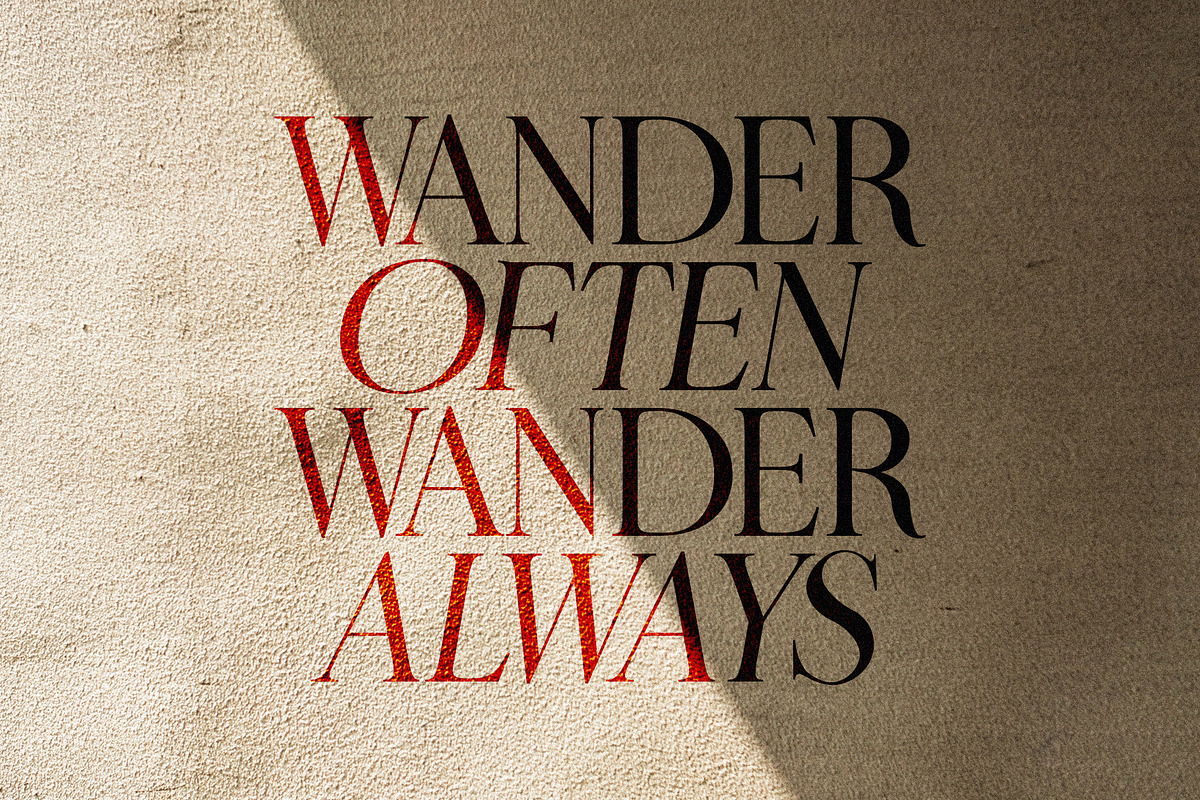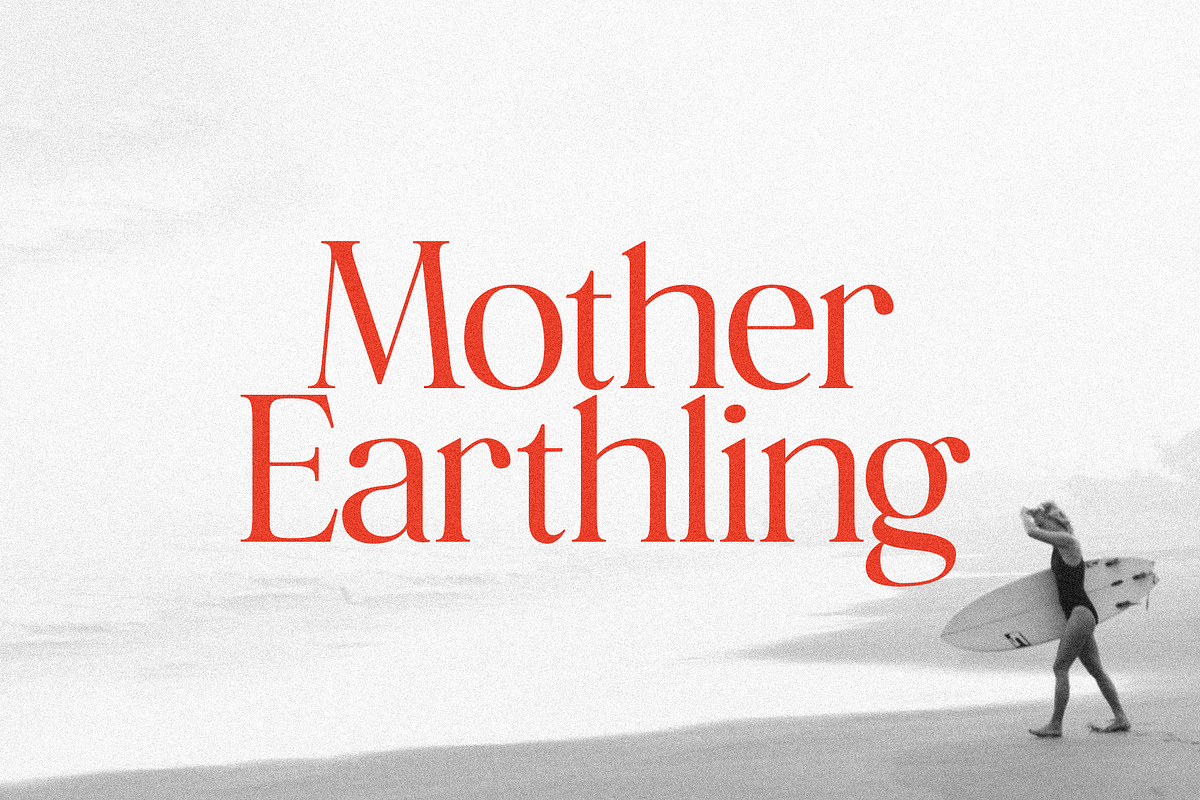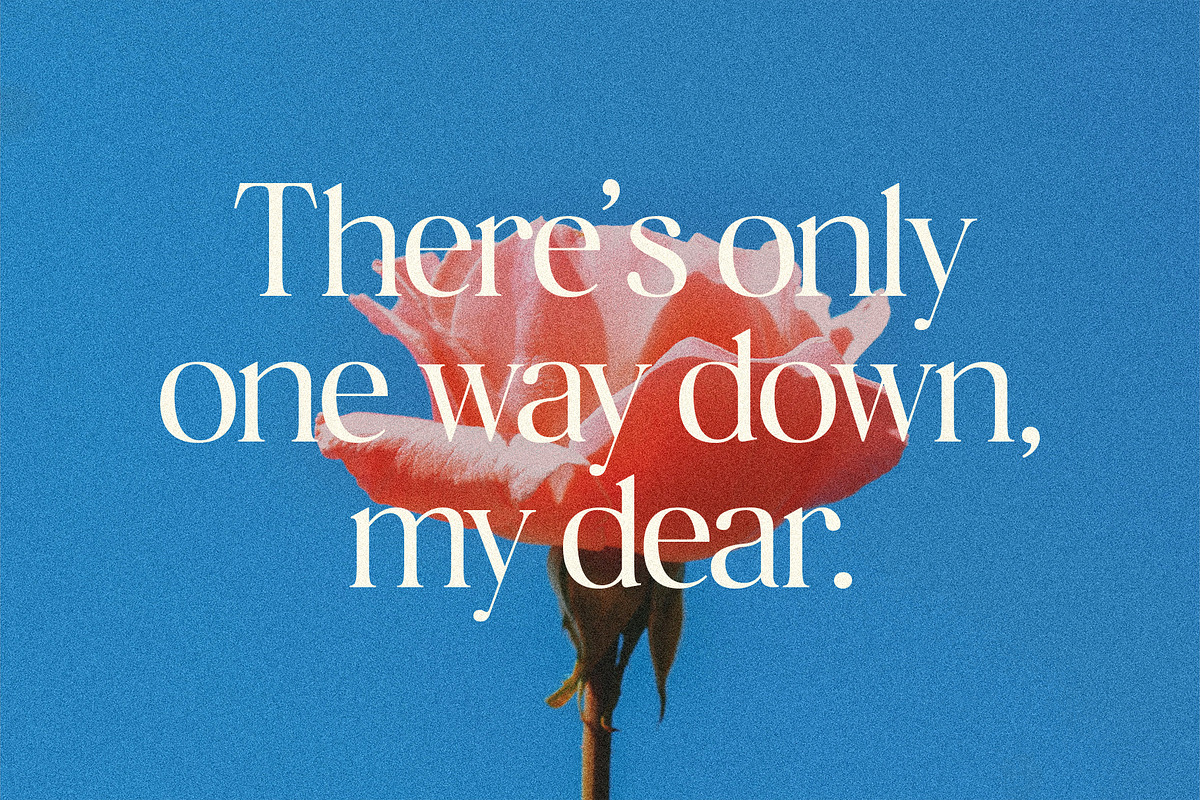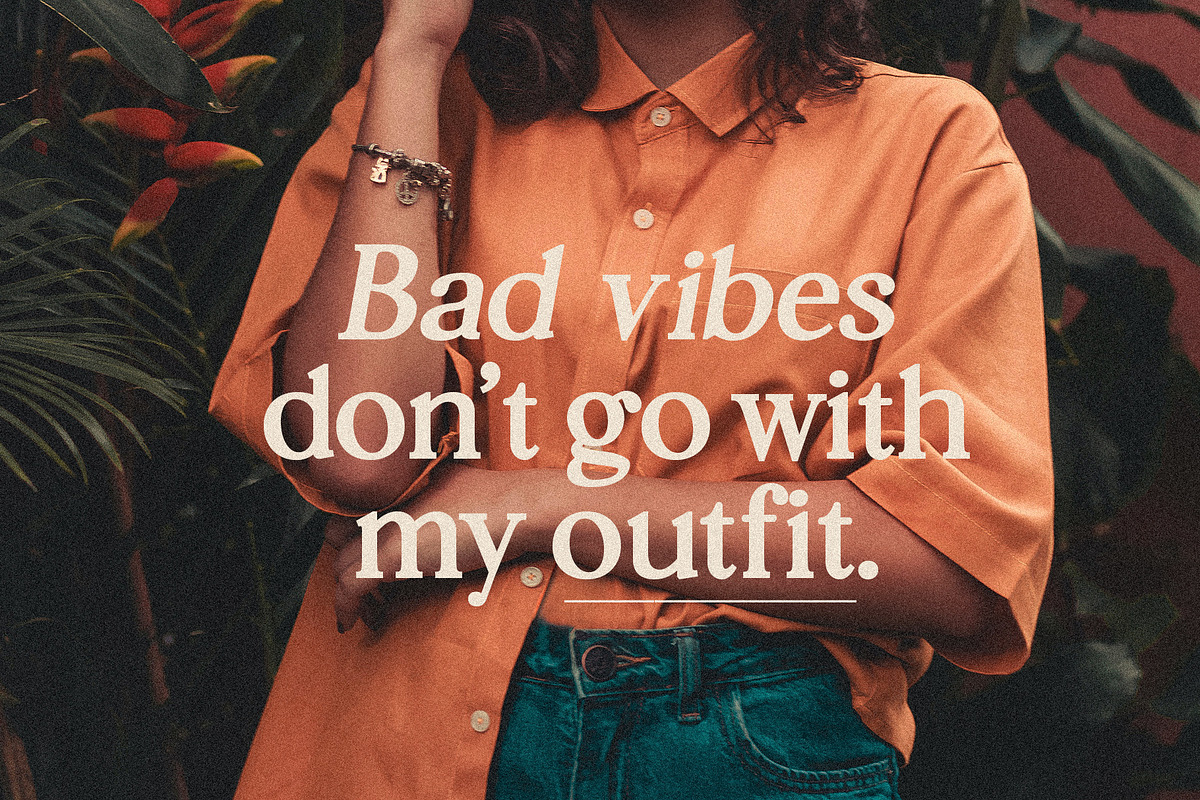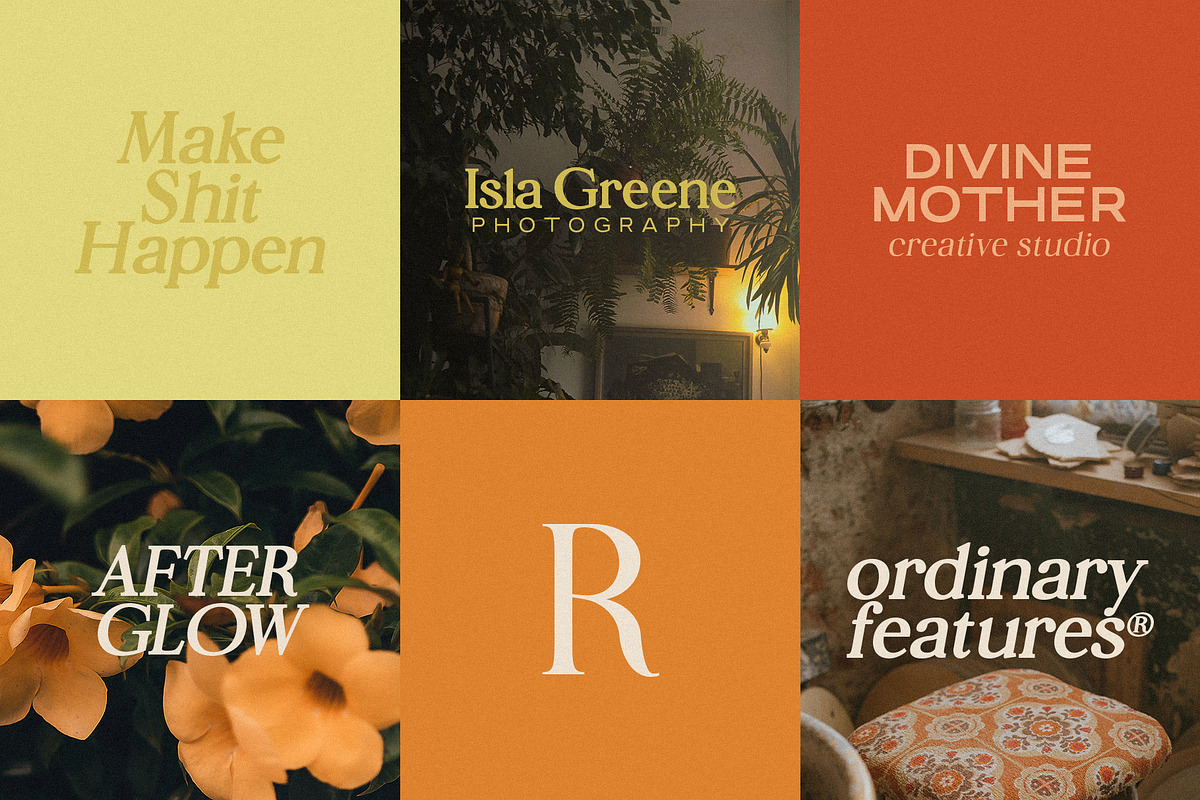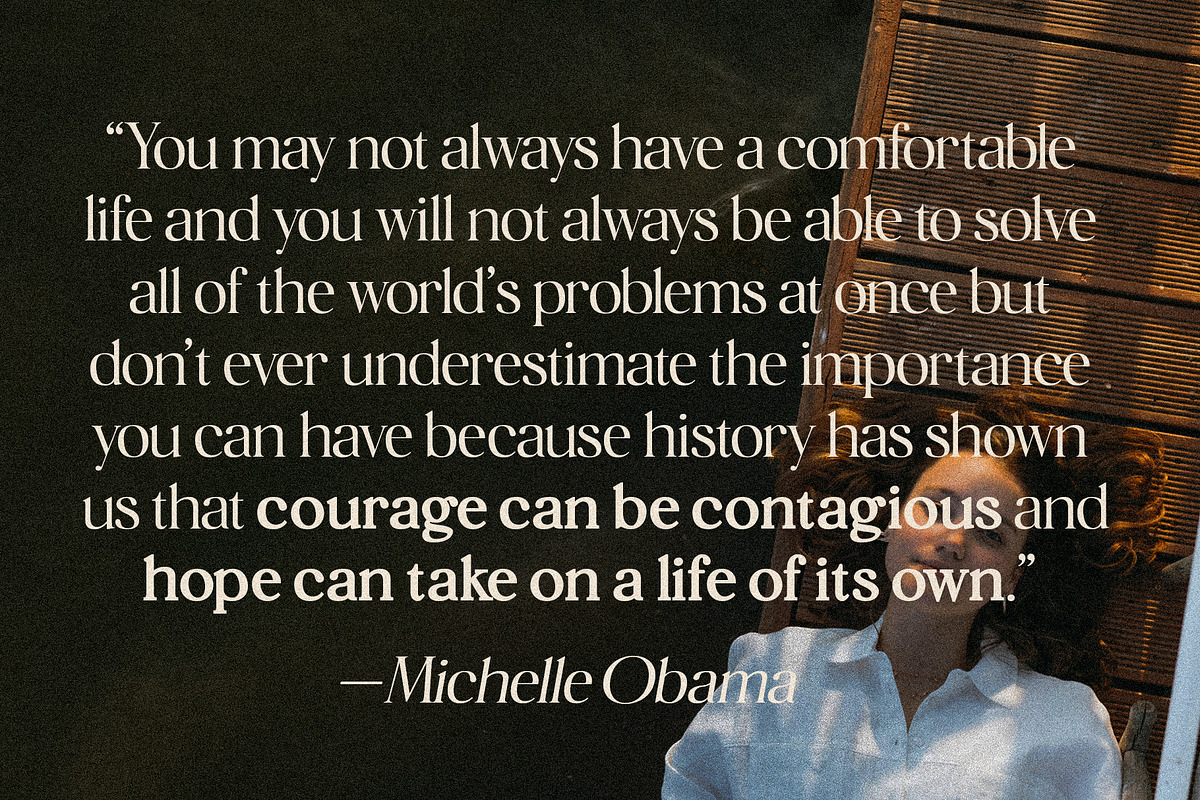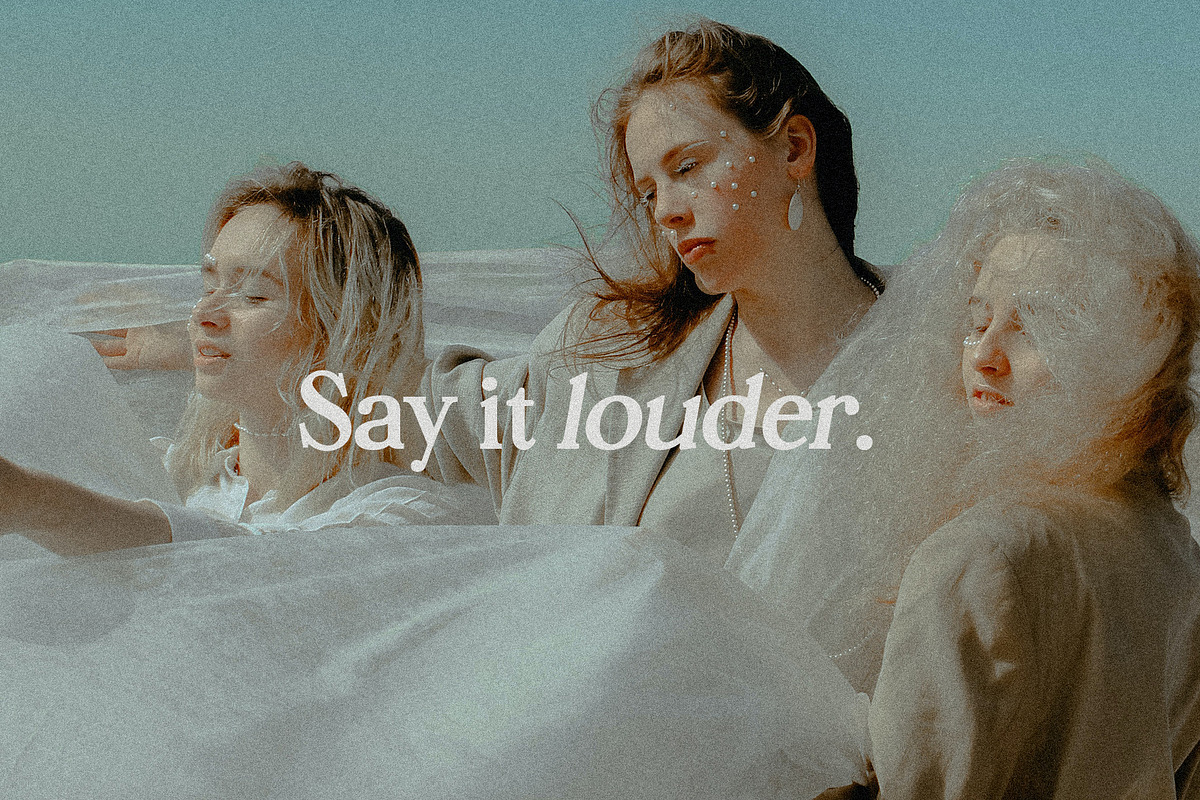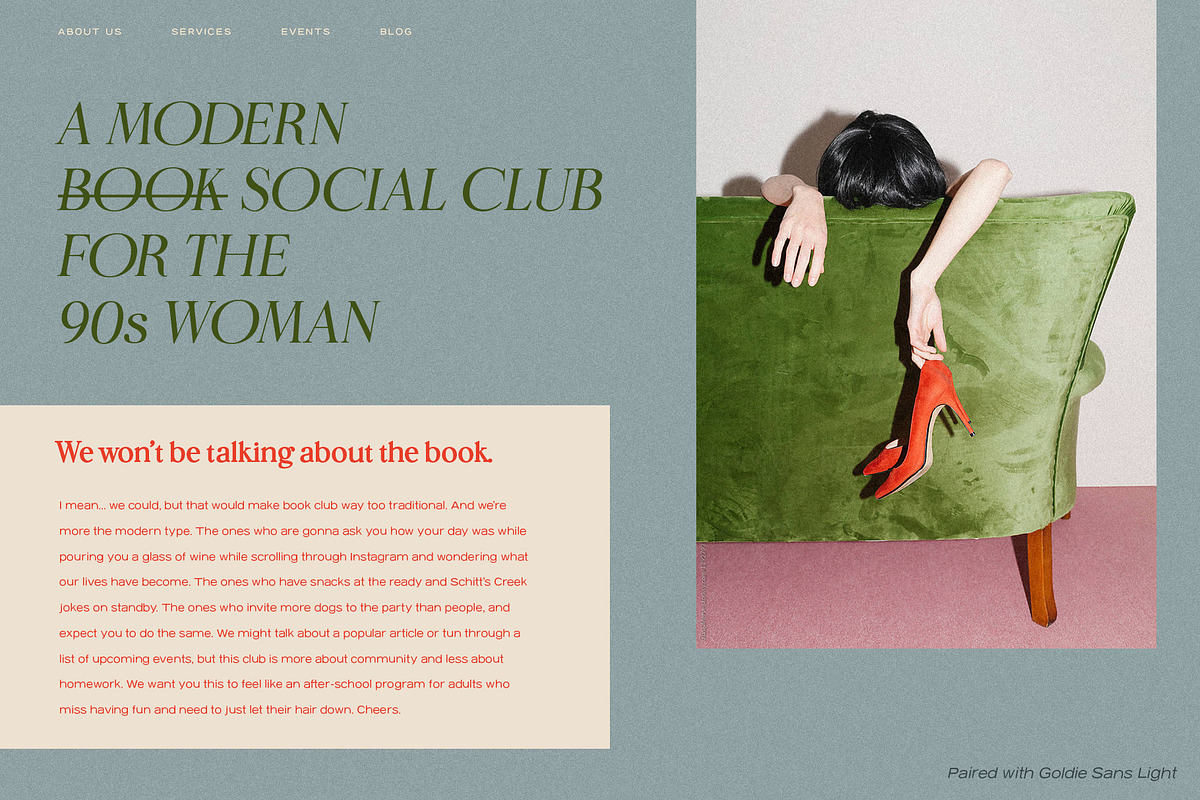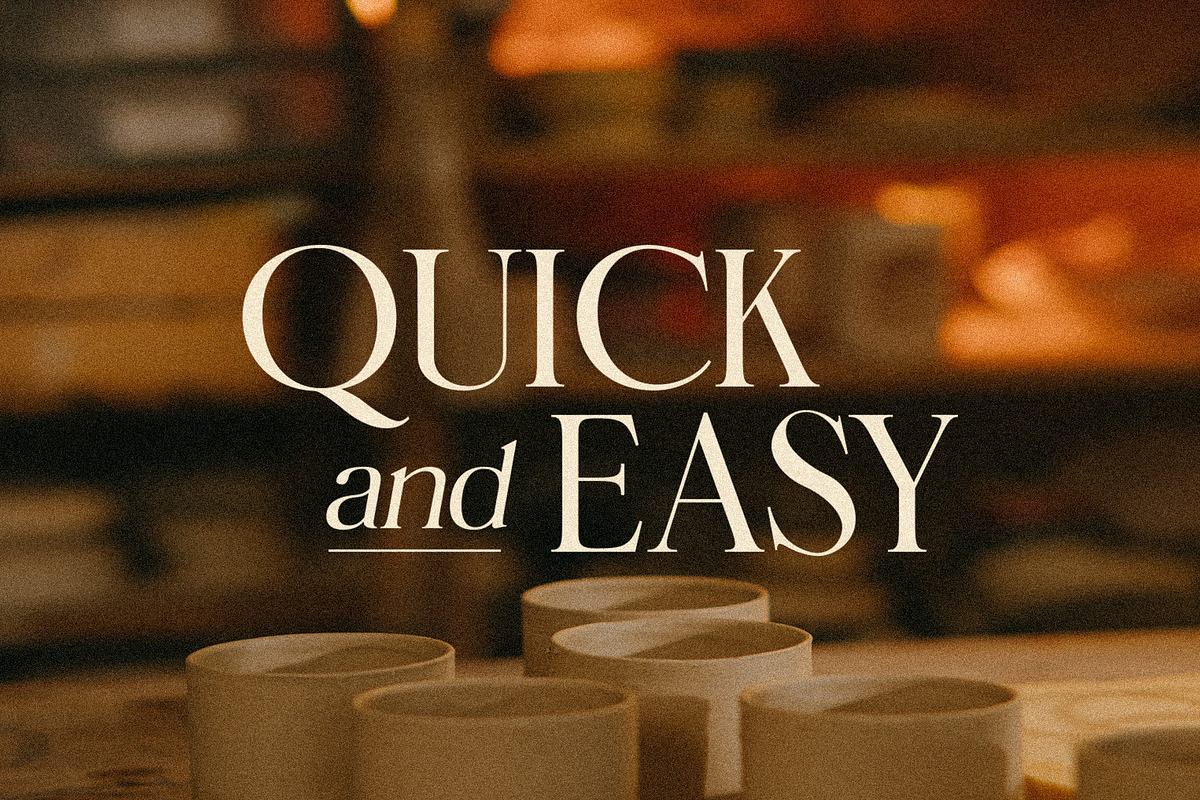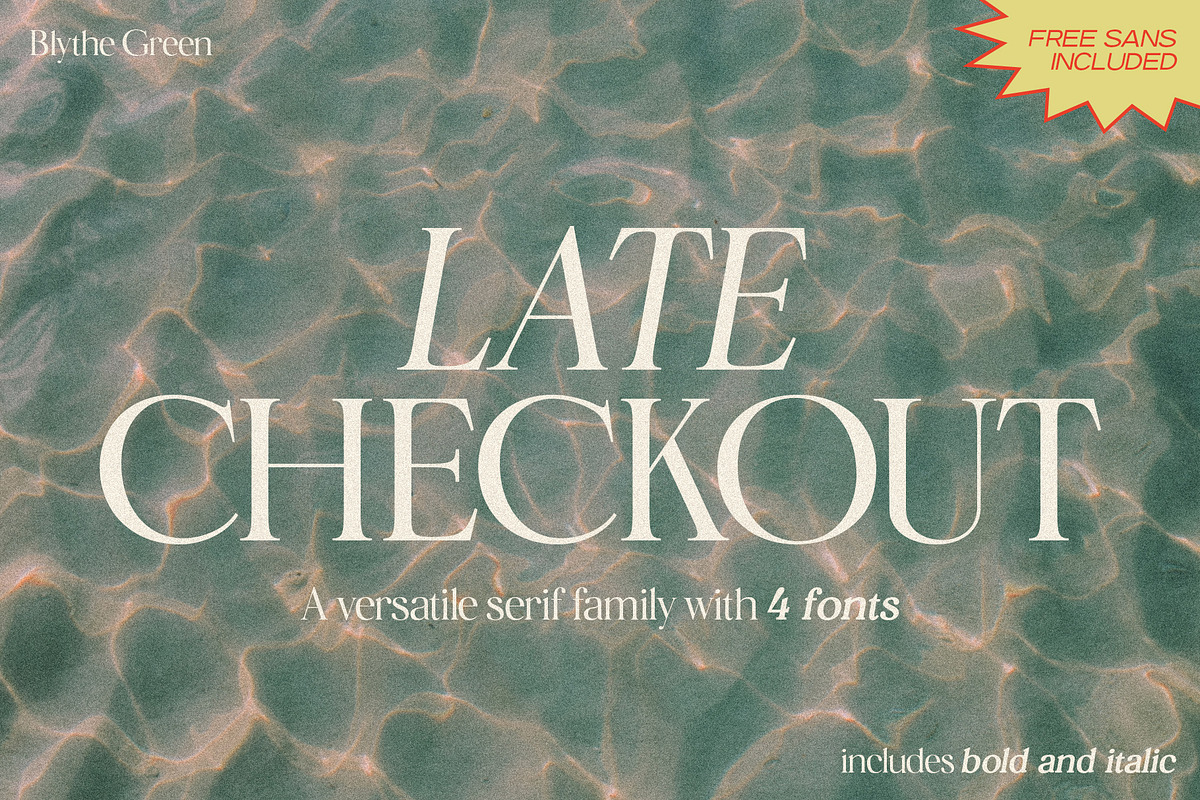
Late Checkout Serif with Free Sans!
Meet Late Checkout: the versatile serif typeface with 4 fonts (regular, italic, bold and bold italic) perfect for headlines, logos, branding, and quotes. Test it out below!